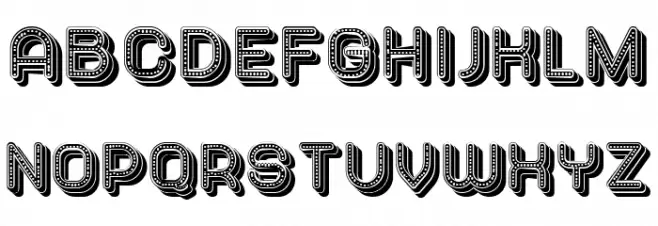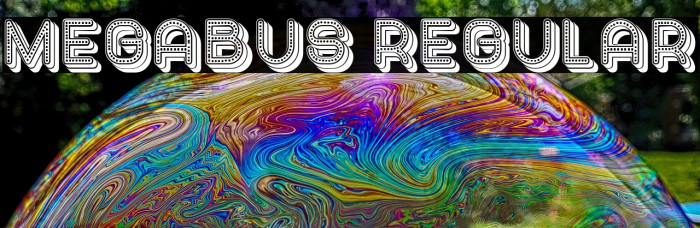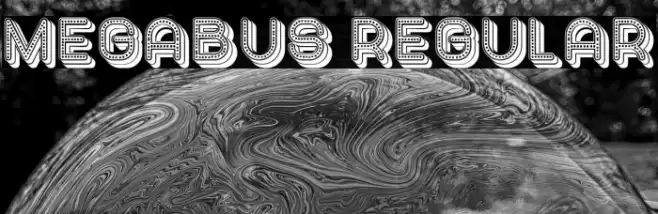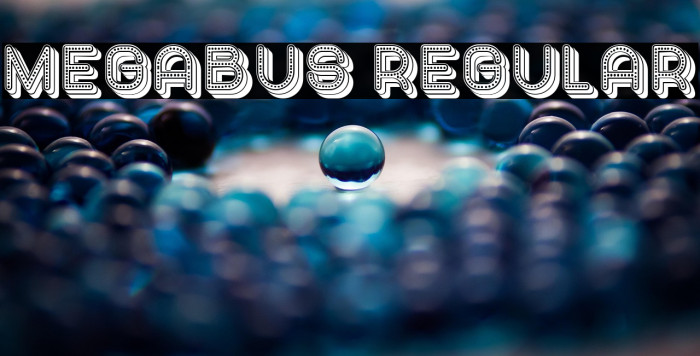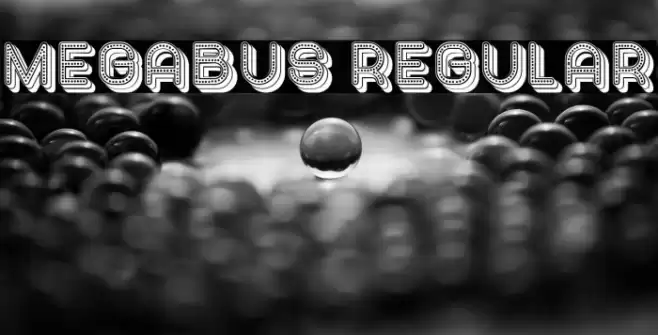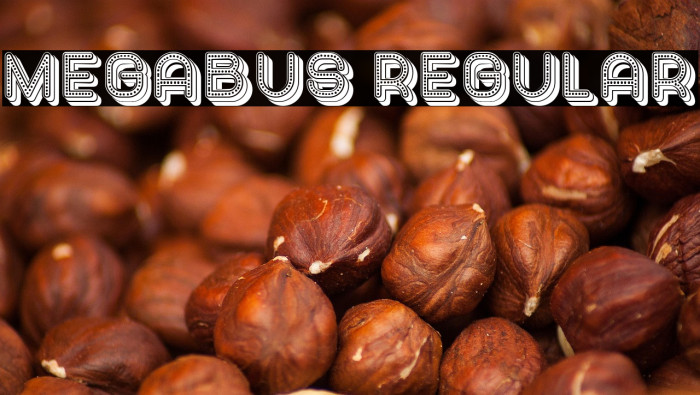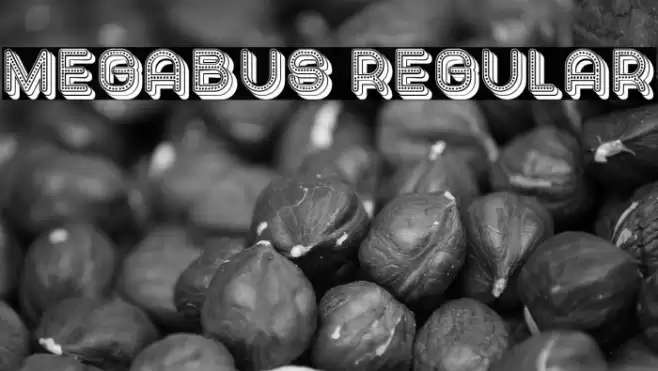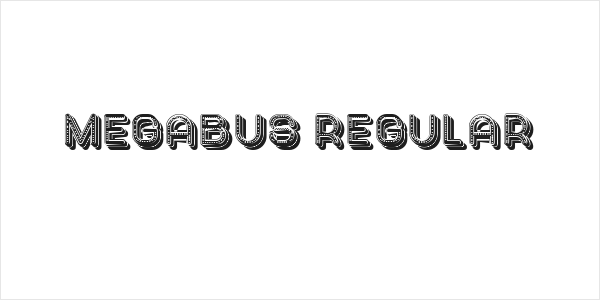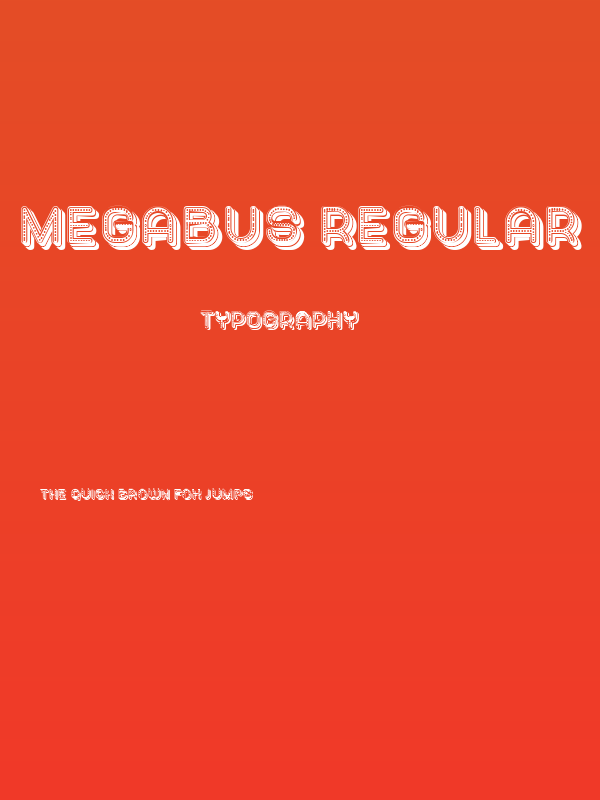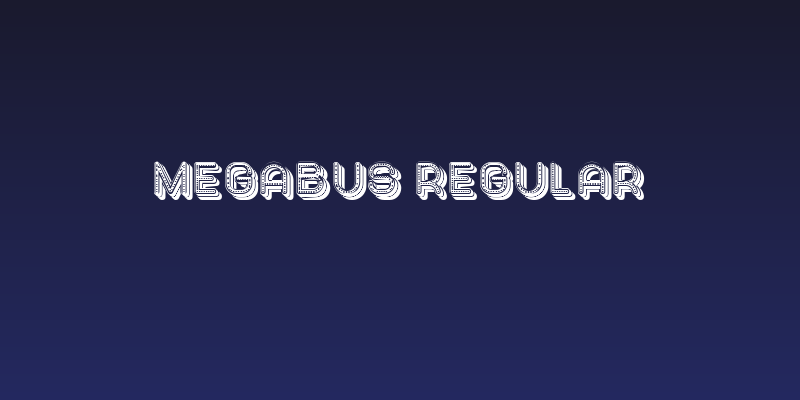
Megabus Regular Font
Megabus Regular Description
This font features a bold and decorative style with a three-dimensional effect, achieved through a combination of solid fills and dotted patterns. The letters are uppercase and have a playful, retro aesthetic reminiscent of vintage signage or circus posters. The intricate detailing within each character adds depth and visual interest, making it ideal for eye-catching designs. The font's unique style is characterized by its bold outlines and the use of shadowing to create a sense of depth. The overall appearance is both nostalgic and modern, suitable for projects that require a standout typographic element.
| Proposed Projects | Ideal for posters, signage, branding, and any project requiring a vintage or playful aesthetic. |